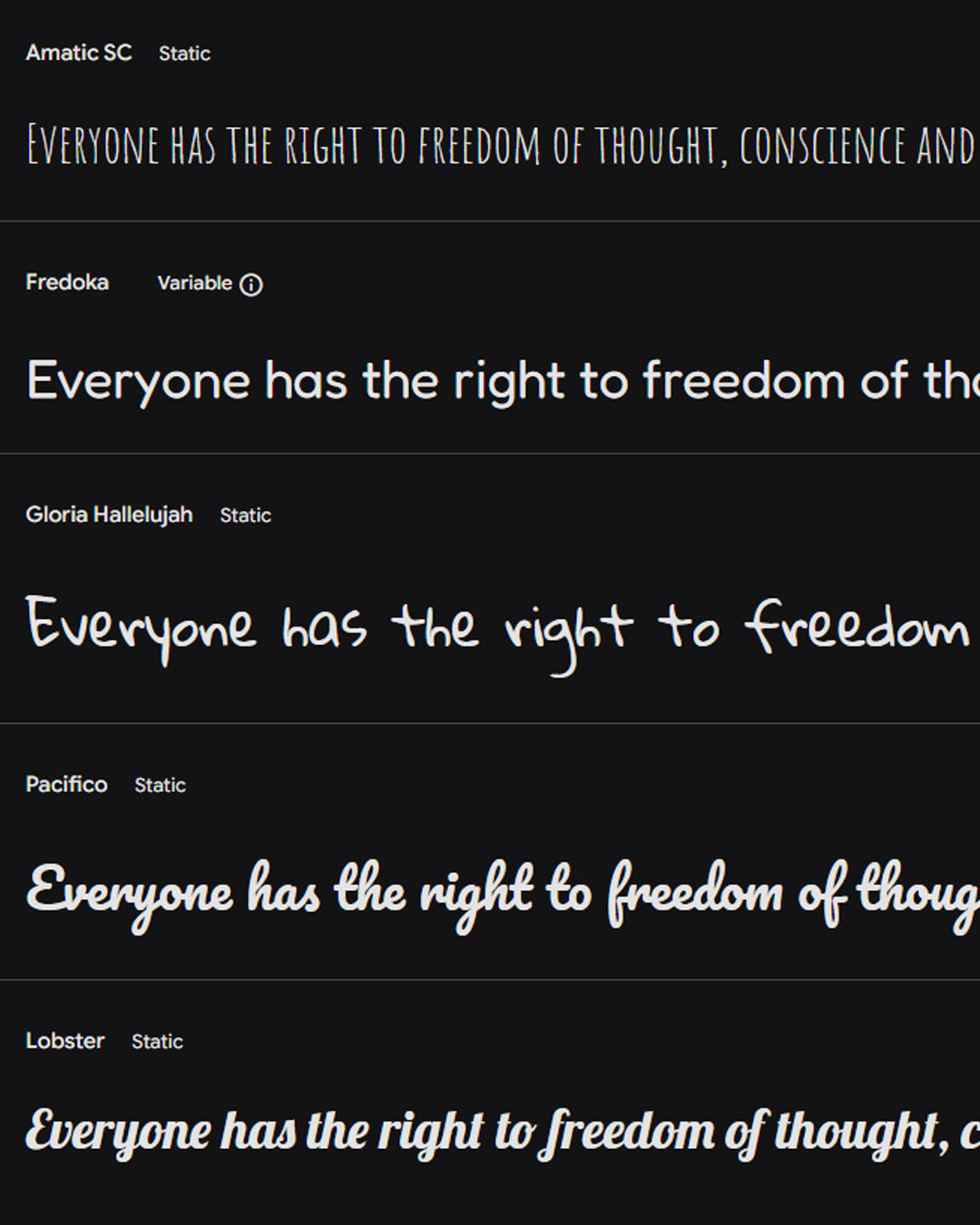
Express love, laughter, and lasting bonds with the Friendship Day – Premium Fonts (Pack of 10).
A specially curated typeface collection designed for heartfelt greetings, social creatives, and expressive digital artwork. These fonts blend warmth and personality, making them ideal for crafting memorable friendship cards, story posts, posters, and more.
Key Features:
🔤 10 Exclusive Fonts Tailored for Friendship Day Projects
👯♀️ Includes handwritten, playful, bold & script-style typography
🎨 Ideal for friendship cards, invitations, social media & print
Perfect for designers, crafters, and content creators looking to bring emotional depth and charm to their friendship-themed visuals.